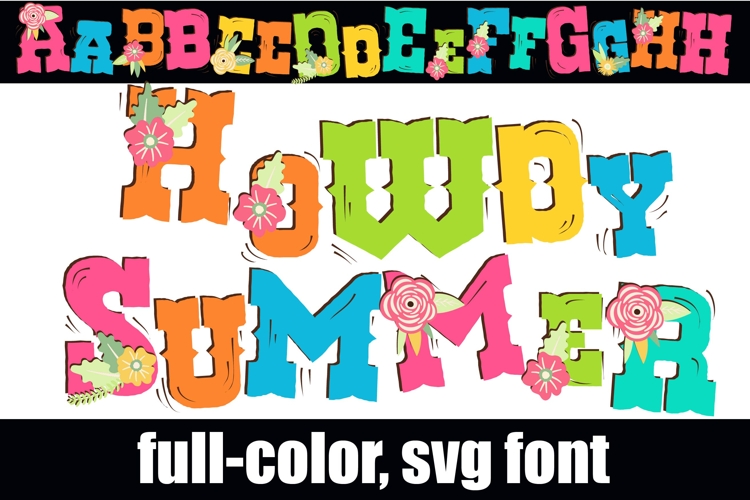
Howdy Summer Color Font
This full-color, serif font is in a summer color palette and sports some sunny flowers. There is an alt case of additional colors of each letter that you can access through your system's character map.